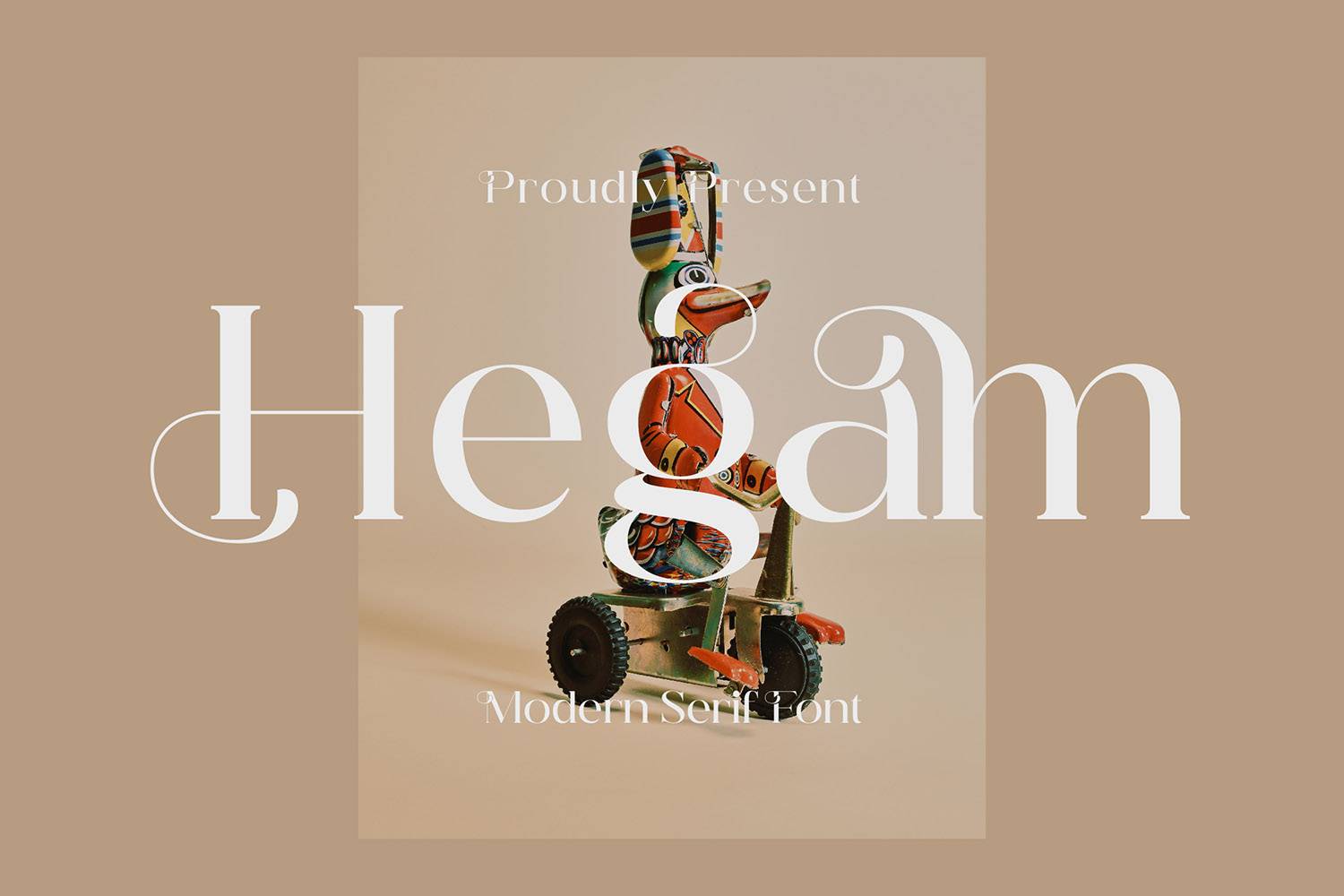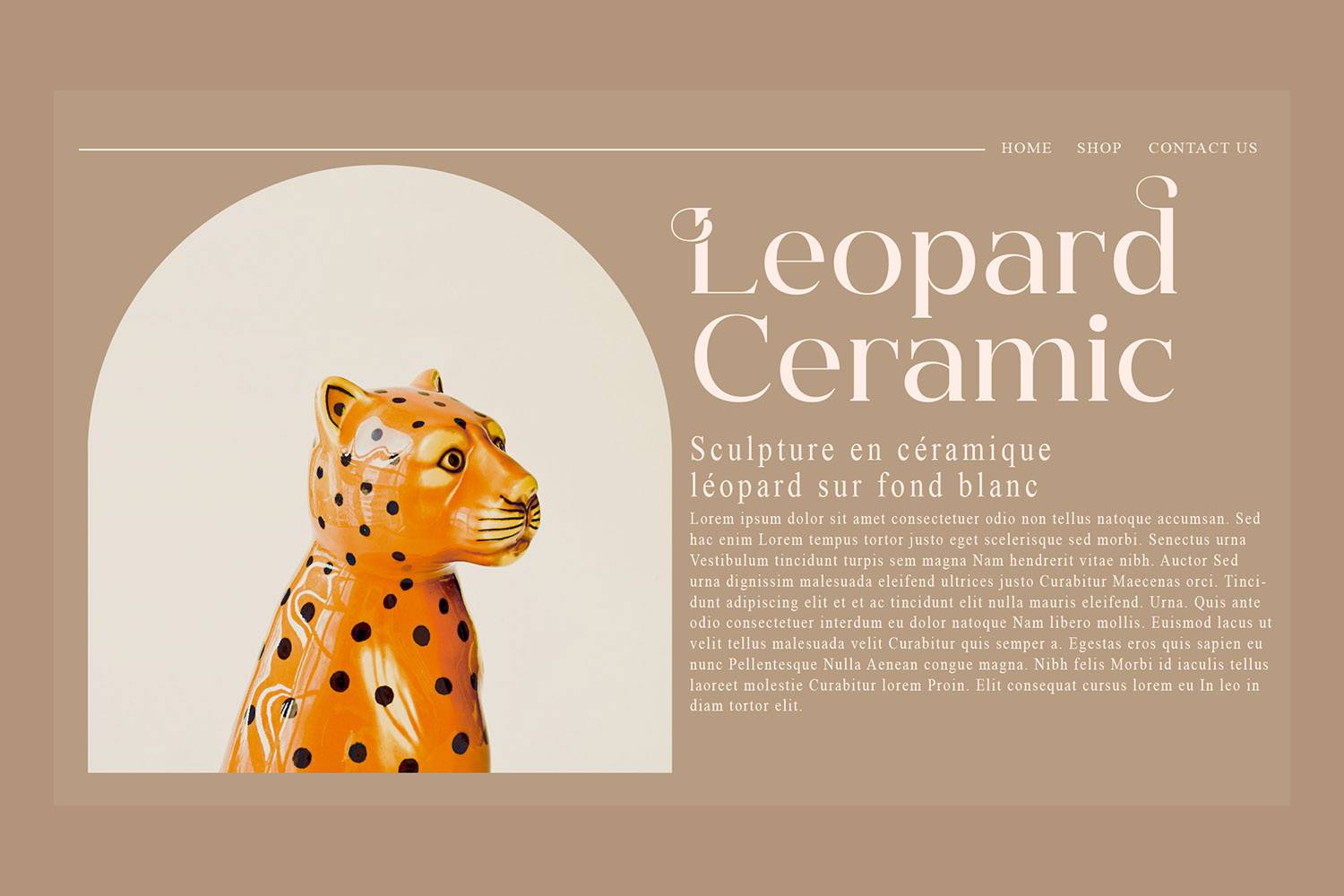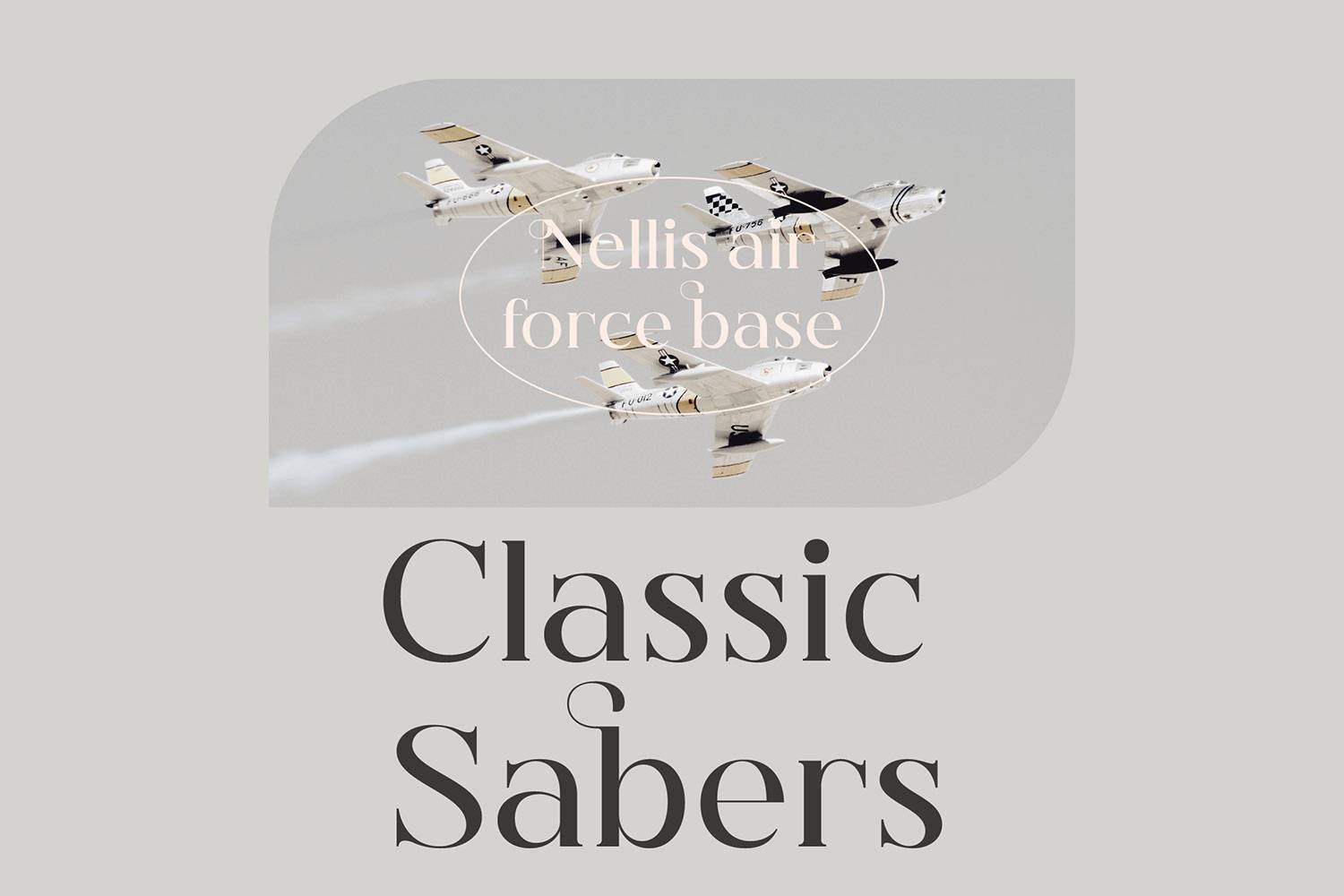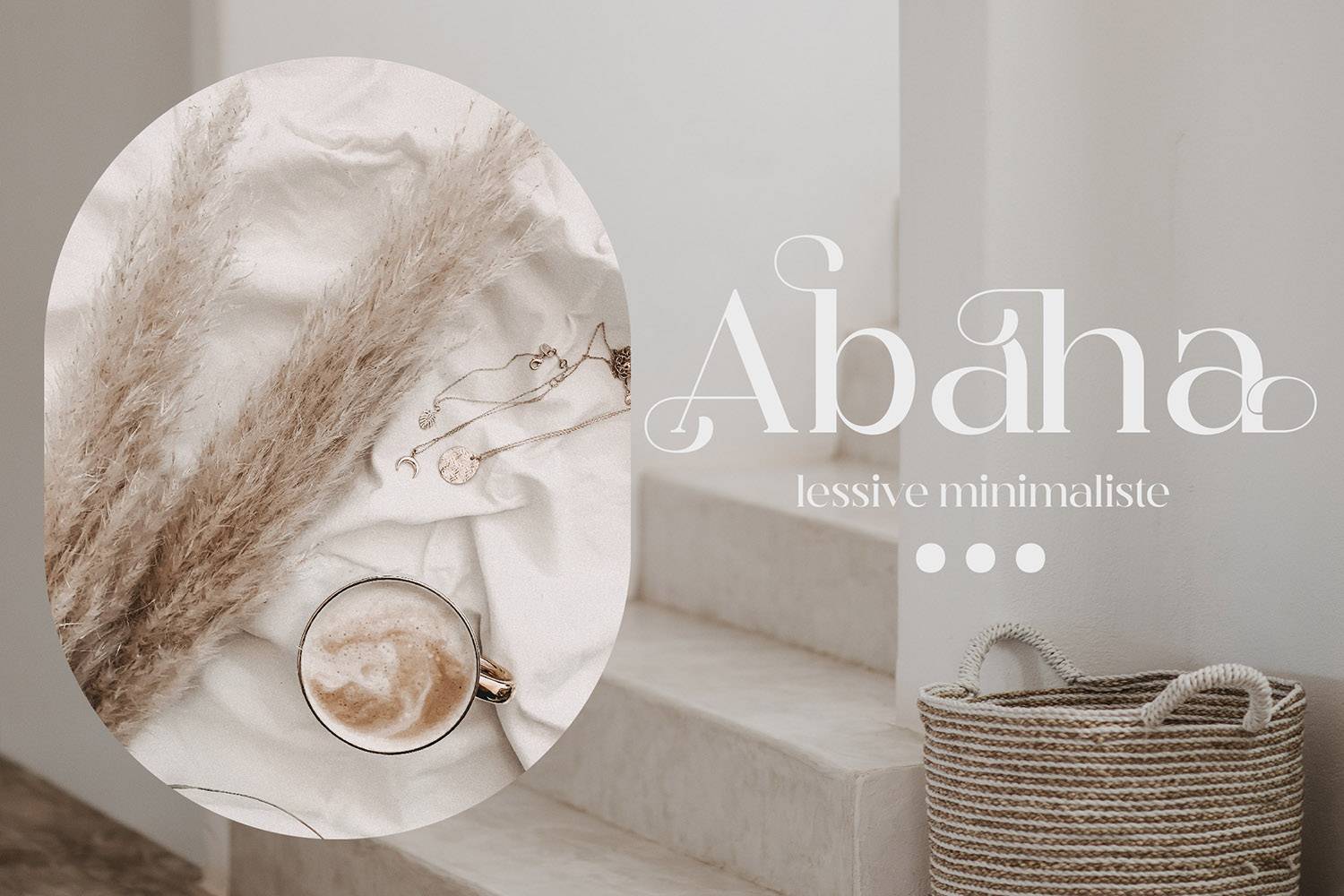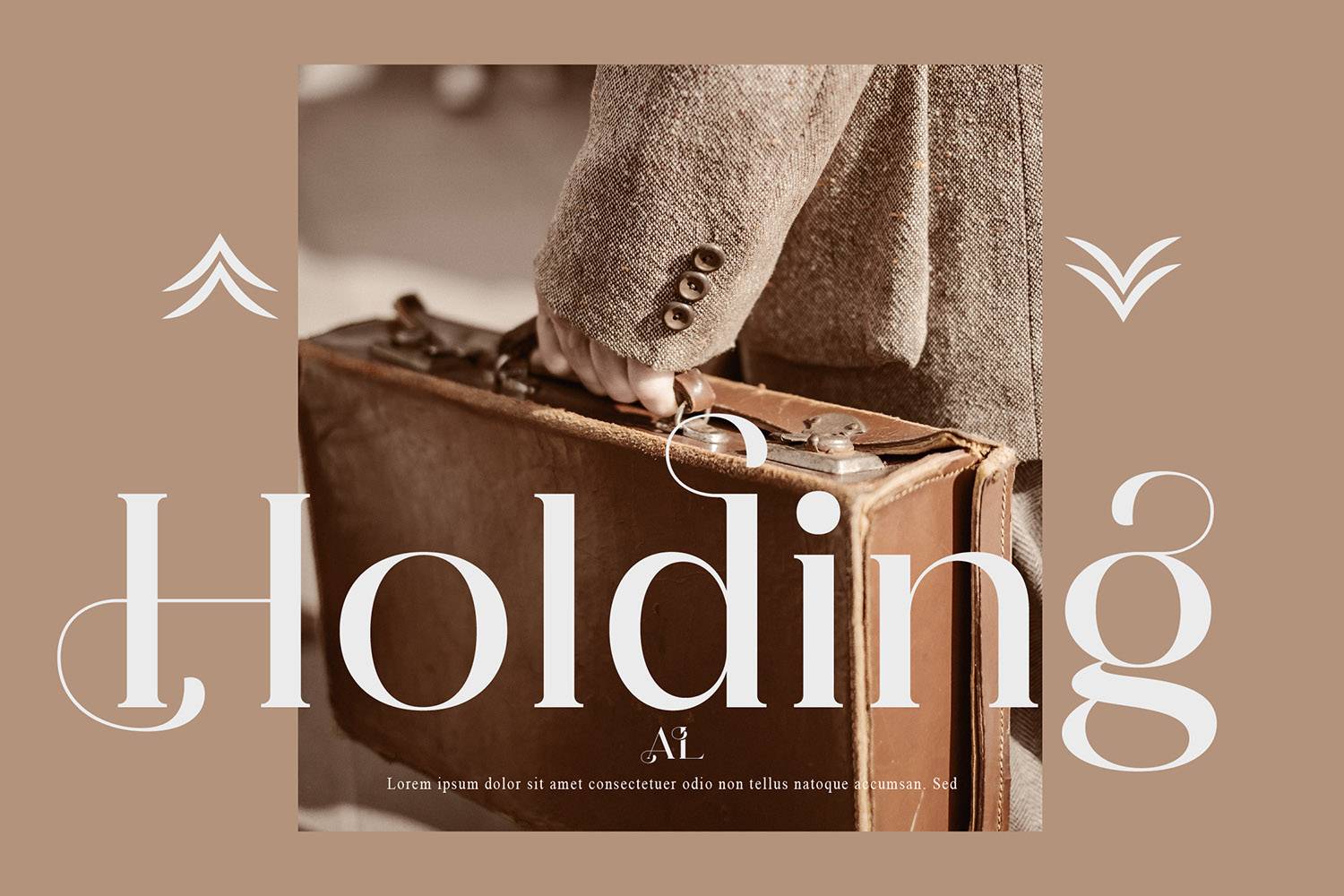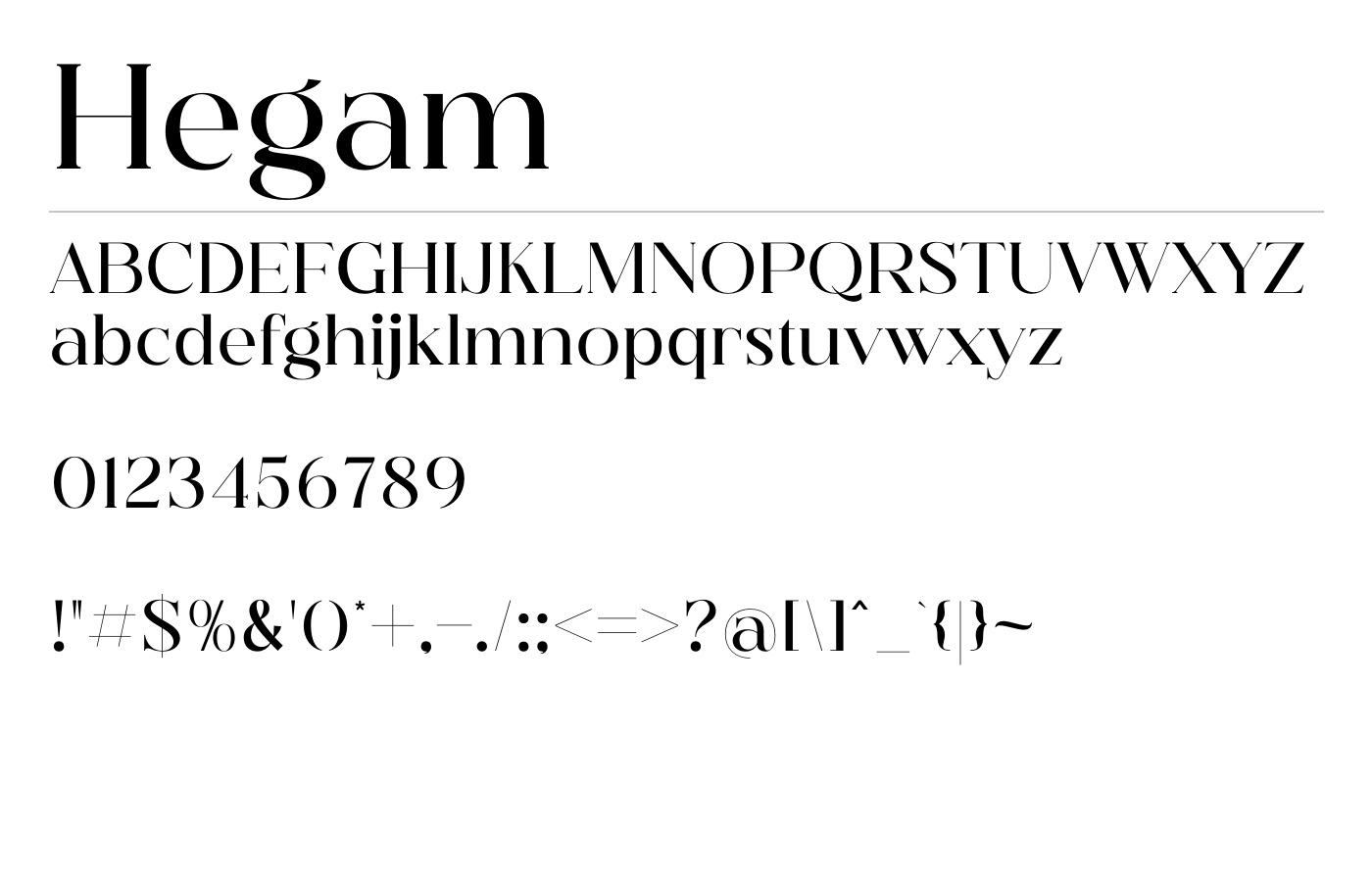
Hegam is an elegant serif font characterized by its high contrast between thick and thin strokes and slender, bracketed serifs, giving it a refined and sophisticated appearance. Its classic letterforms, with features like the single-story 'a' and distinctive curved tail on the 'Q', make it ideal for luxury branding, editorial headlines, and formal design projects that require a timeless, polished look. This font works best in settings where elegance and readability are key, such as fashion magazines, upscale packaging, and stylish website headers.
Hegam Font
About Hegam Font